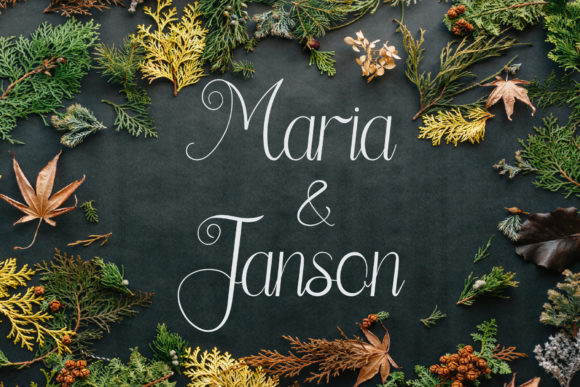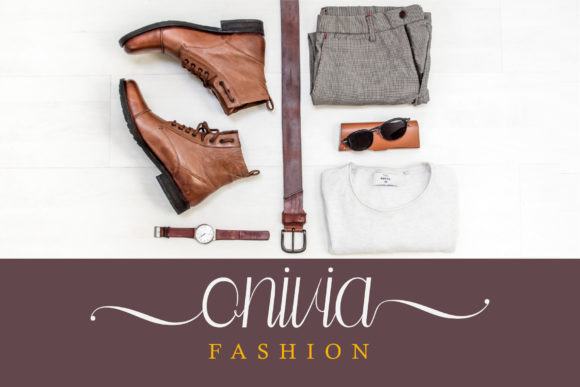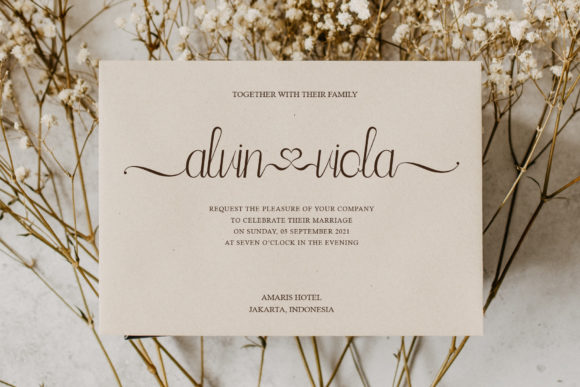
About Buny Huny Font
Buny Huny is a unique and elegant handwritten font that will look amazing on any project that requires a personalized touch. Add it to your card games, wedding invitations, logo designs, and notice how it makes them stand out!